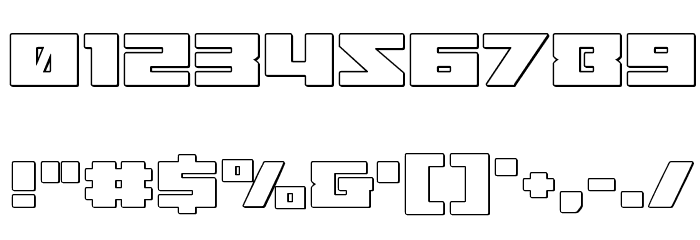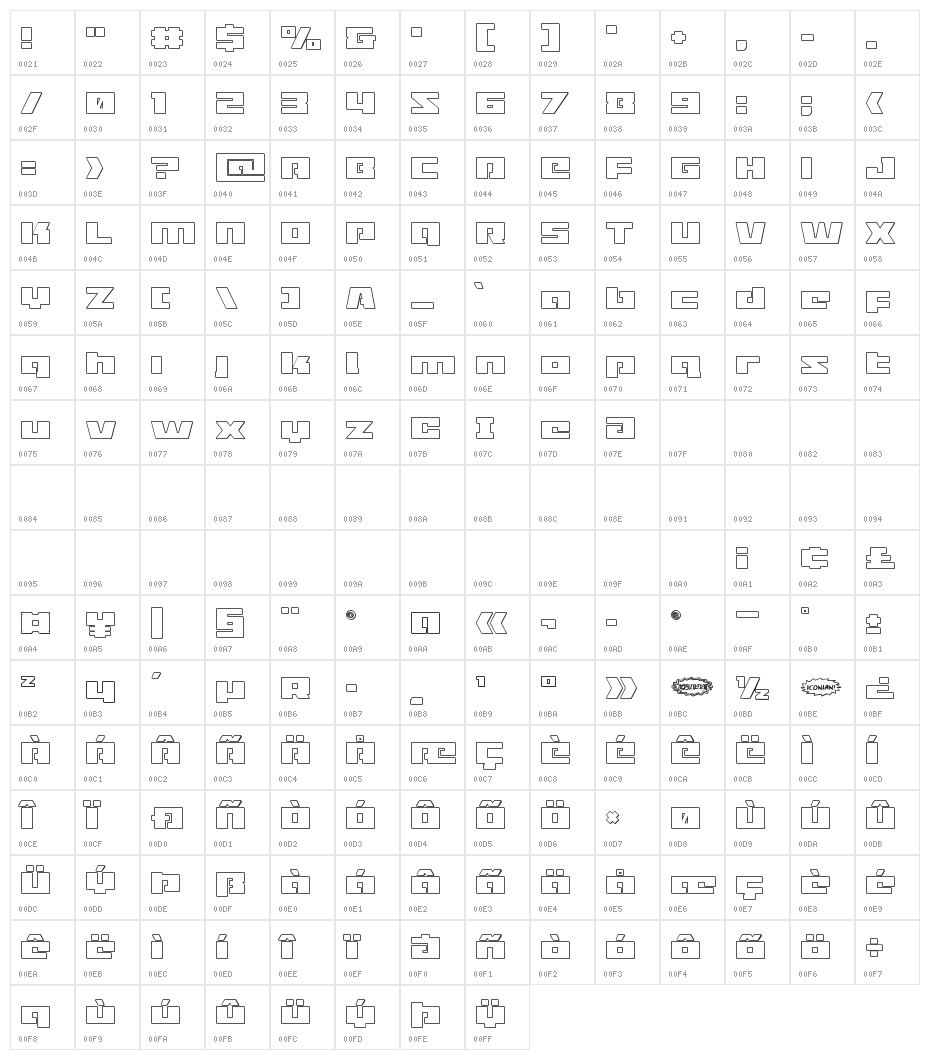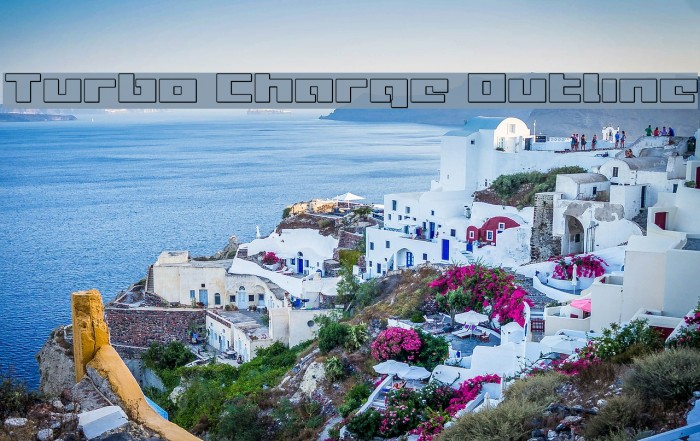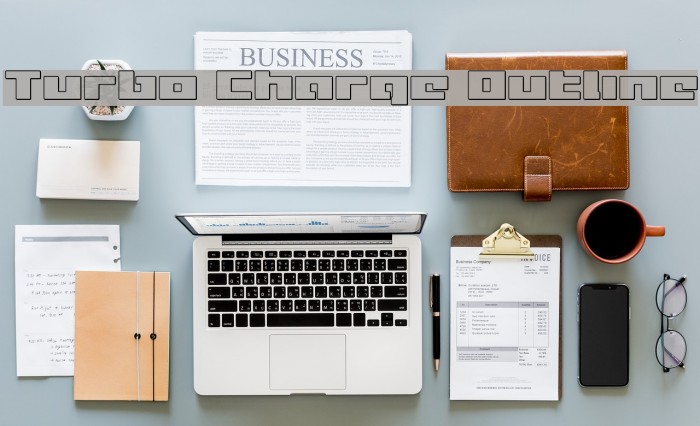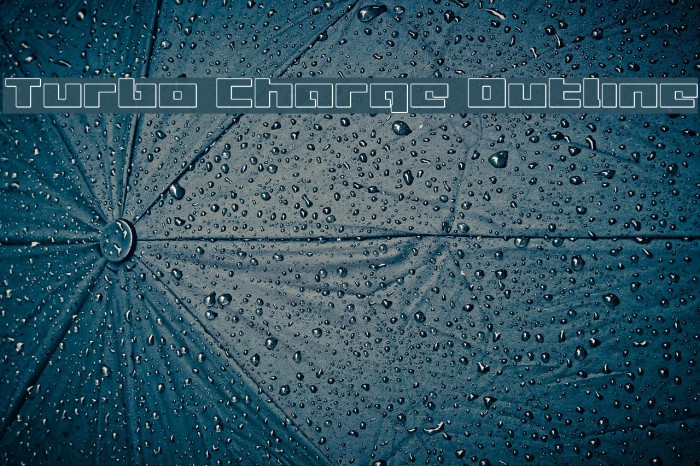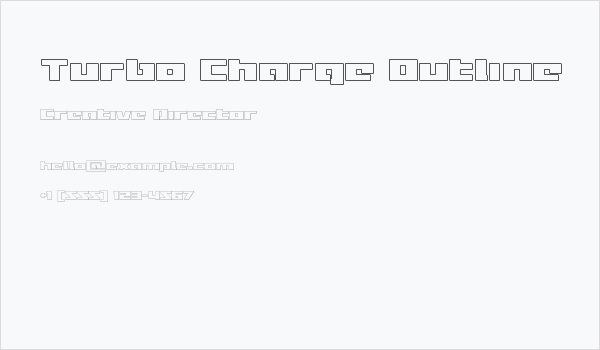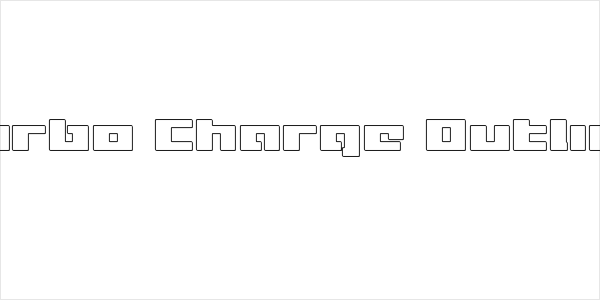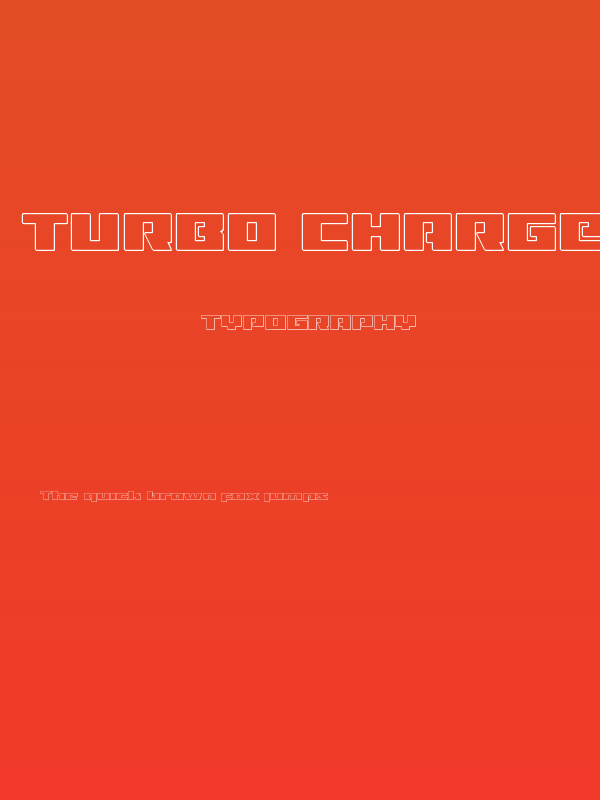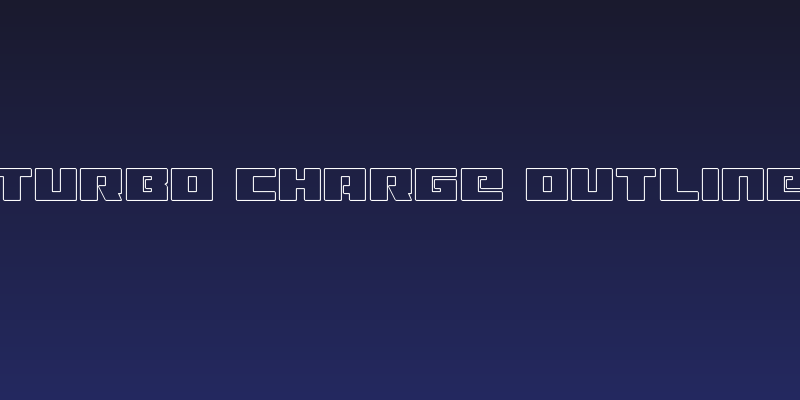
Turbo Charge Outline Font
Turbo Charge Outline Description
This font features a bold, geometric outline style that gives it a futuristic and industrial feel. Each character is constructed with sharp, angular lines and a consistent stroke width, creating a uniform and cohesive look. The uppercase and lowercase letters maintain a similar structure, enhancing readability while retaining a unique aesthetic. The numerals and special characters follow the same design principles, ensuring a harmonious appearance across all glyphs. This font's outline nature makes it ideal for creating eye-catching designs where the text needs to stand out.
| Proposed Projects | Ideal for branding, posters, video game graphics, and any project needing a modern, standout typeface. |